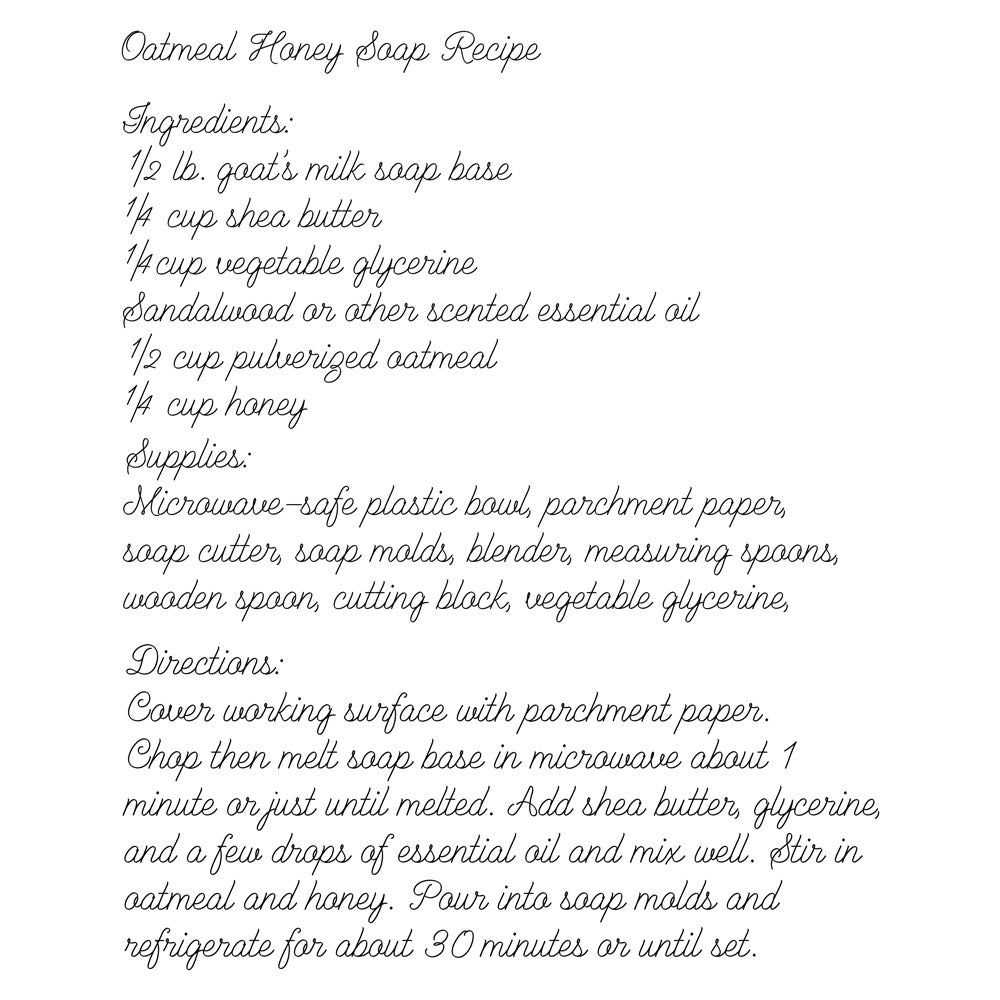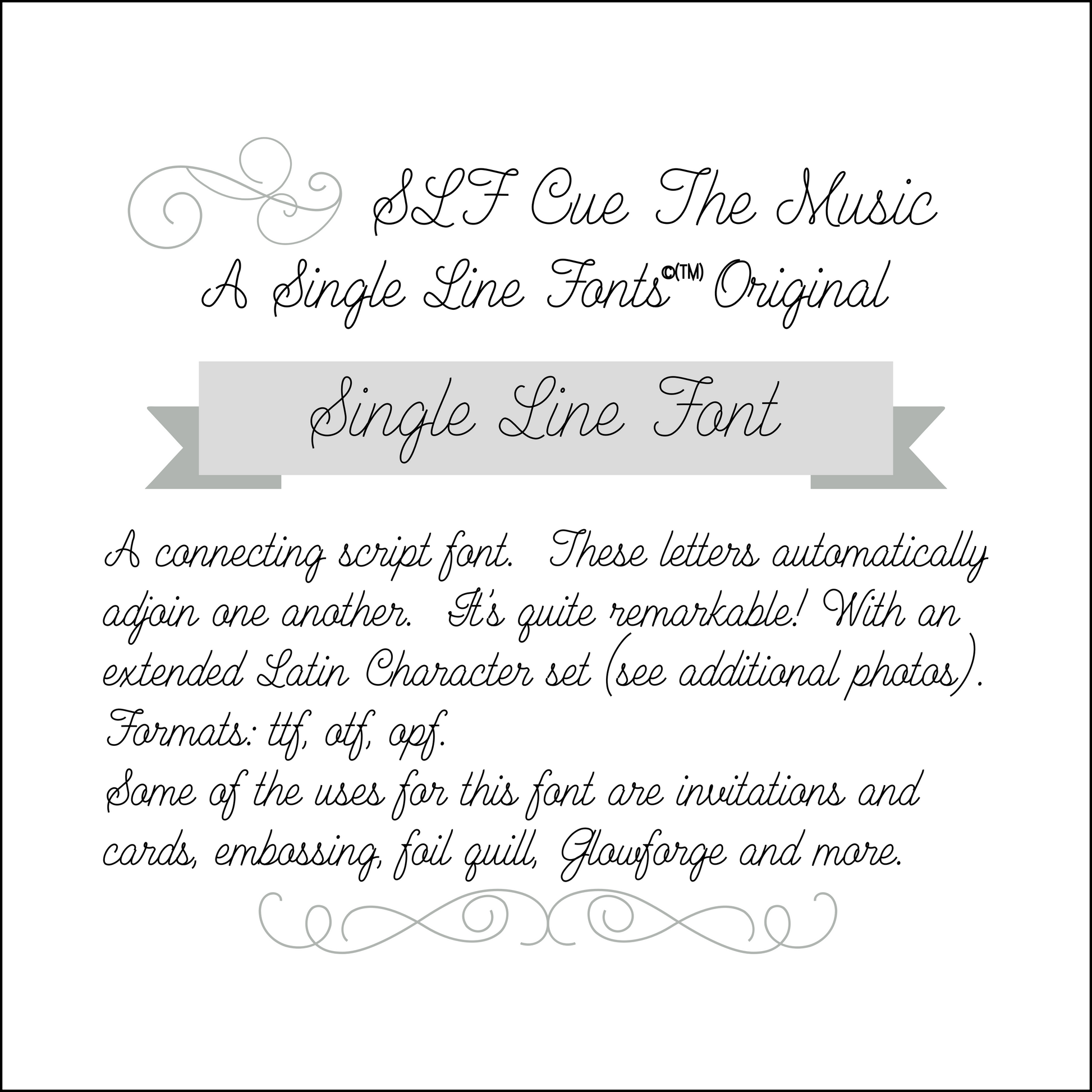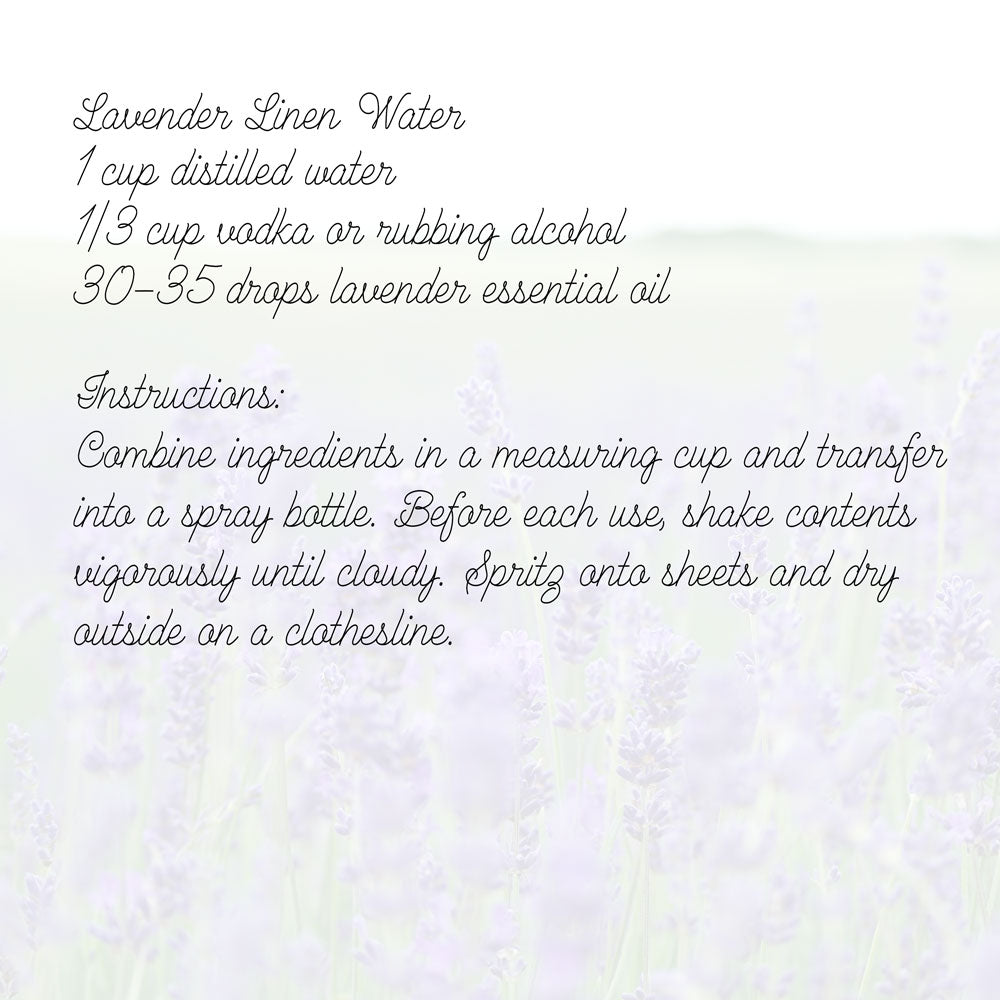
SLF Cue The Music – Dynamic Single Line Print Font for Engraving & Crafts
SLF Cue The Music is a rhythmic, dynamic single line print font designed to bring movement and energy to your engraving, scoring, CNC, and creative craft projects. Its bold yet open letterforms make it ideal for signage, labels, awards, personalized gifts, music-themed designs, and fun statement pieces.
This monoline font includes a complete character set with uppercase and lowercase letters, numbers, punctuation, symbols, and accented characters for multilingual support.
• Music signs, party décor, labels, and creative projects